ITF published the Volte and Diodrum families in 2015. Since these were well-received, we are pleased to announce new additions for each family. Volte Latin is now joined by Volte Rounded. Like Volte, which also has a Devanagari available, Diodrum has been a multi-script design for months. The initial Diodrum Latin release was followed by Diodrum Arabic in January 2016. They are now joined by Diodrum Cyrillic and Diodrum Greek, the Indian Type Foundry’s first-ever typefaces for these scripts.
Volte Rounded
As long as letters have been written, scholars have sought to understand the pure geometry at the heart of their structure. Some writing systems appear more geometric than others, but designers have tried amplify every script’s inherent geometry at one point or another. In the case of the Latin script, geometric sans serif letters have been popular since their introduction in the 1920s. The geometric sans category speaks to many architects, artists, engineers, fashion designers, graphic designers, and musicians in a way almost no other kind of letter can. Since Volte’s release in February 2015, this geometric sans has proved popular with our customers. The original Volte was designed by Namrata Goyal in 2015. Volte Rounded is an extension to the original Volte, designed in Ahmedabad by Shiva Nallaperumal.
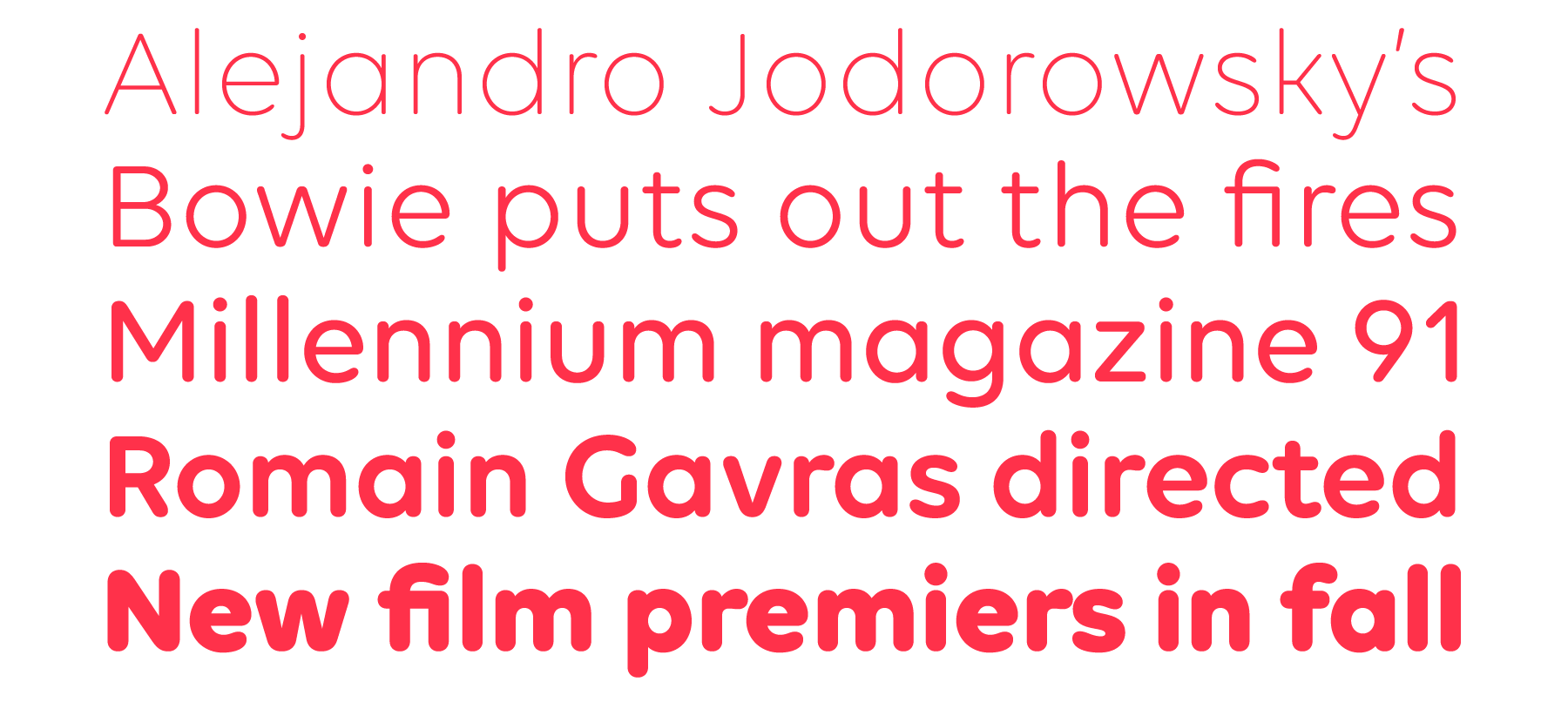
Volte Rounded’s five styles range in weight from a Light through Bold. The “Rounded” suffix to the name refers to the stroke endings. These aren’t softened-up corners; Volte Rounded features full-on sausage-style terminals. The characters’ strokes are low-contrast, even in bolder weights. Both Because Volte Rounded’s proportions are so geometric, its letters’ outer shapes are very similar, especially ‘C’, ‘D’, ‘O’, ‘c’, ‘o’, etc. The exterior curves of the ‘O’ and ‘o’ are almost perfect circles. Counterforms are also as close to being perfect circles as possible. Large counters, combined with open apertures, maximise the letterforms’ interior space. By dispensing with a horizontal bar on the capital ‘G’, for instance, the letter is made simpler, and its counter is enlarged, too. Wide apexes – where diagonals come together, such as in ‘A’, ‘V’, and ‘W’ – improve the evenness of fonts’ letter-spacing. In each Volte Rounded font, letter-spacing reflects counterform size. This means that the advance widths of the Bold’s characters are actually smaller than those of the Light. The numerals have streamlined forms. Since these are also narrow, they easily fit into strings of either uppercase or lowercase text. The tops of the numerals align with the uppercase height, and the lowercase’s ascenders extended above the cap height slightly.
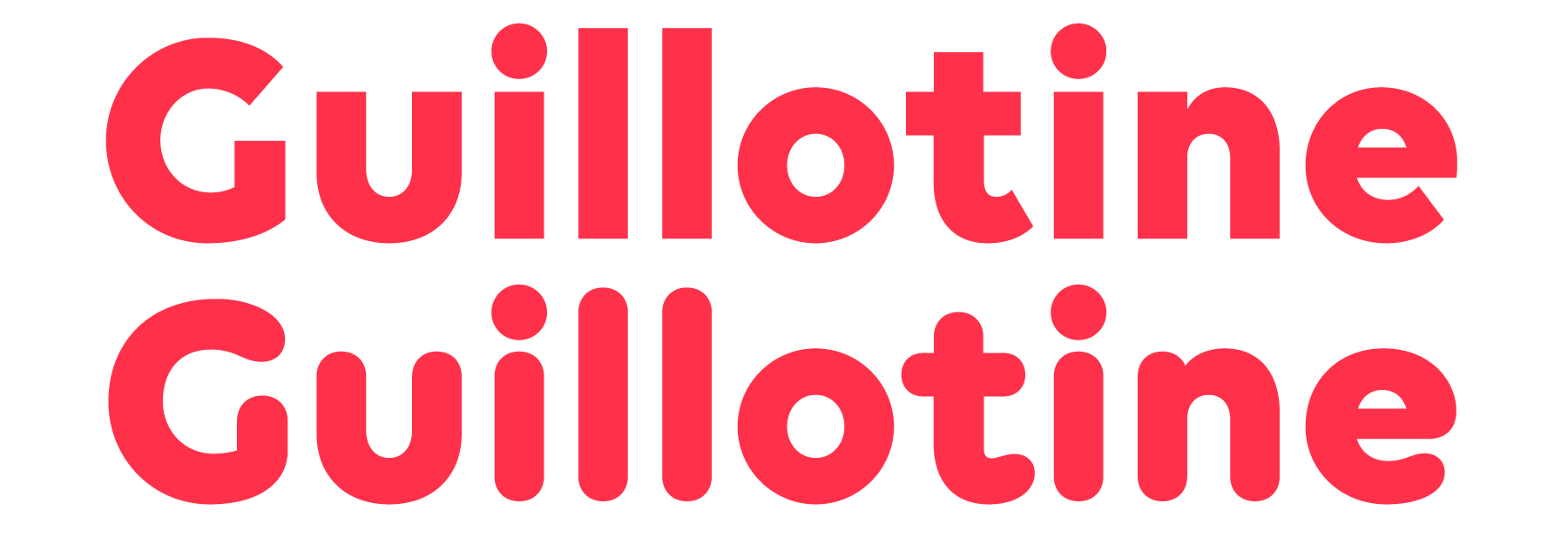
Volte and Volte Rounded diverge from typical geometric sans serifs typefaces in their attractive details, such as their straight-topped ‘3’ or the curled outstrokes on ‘t’ and ‘y.’ The ‘R’ has a straight leg. The ‘a’ and ‘g’ are single-storey, and the ‘u’ is both spurless and symmetrical. The high degree of design simplification is even visible in the typeface’s diacritics and punctuation marks. While this is most obvious in the question mark, the design of the cedilla is also noteworthy. Not only has its structure been simplified, but the mark also attaches to a characters’ base.
Diodrum Cryrillic & Greek
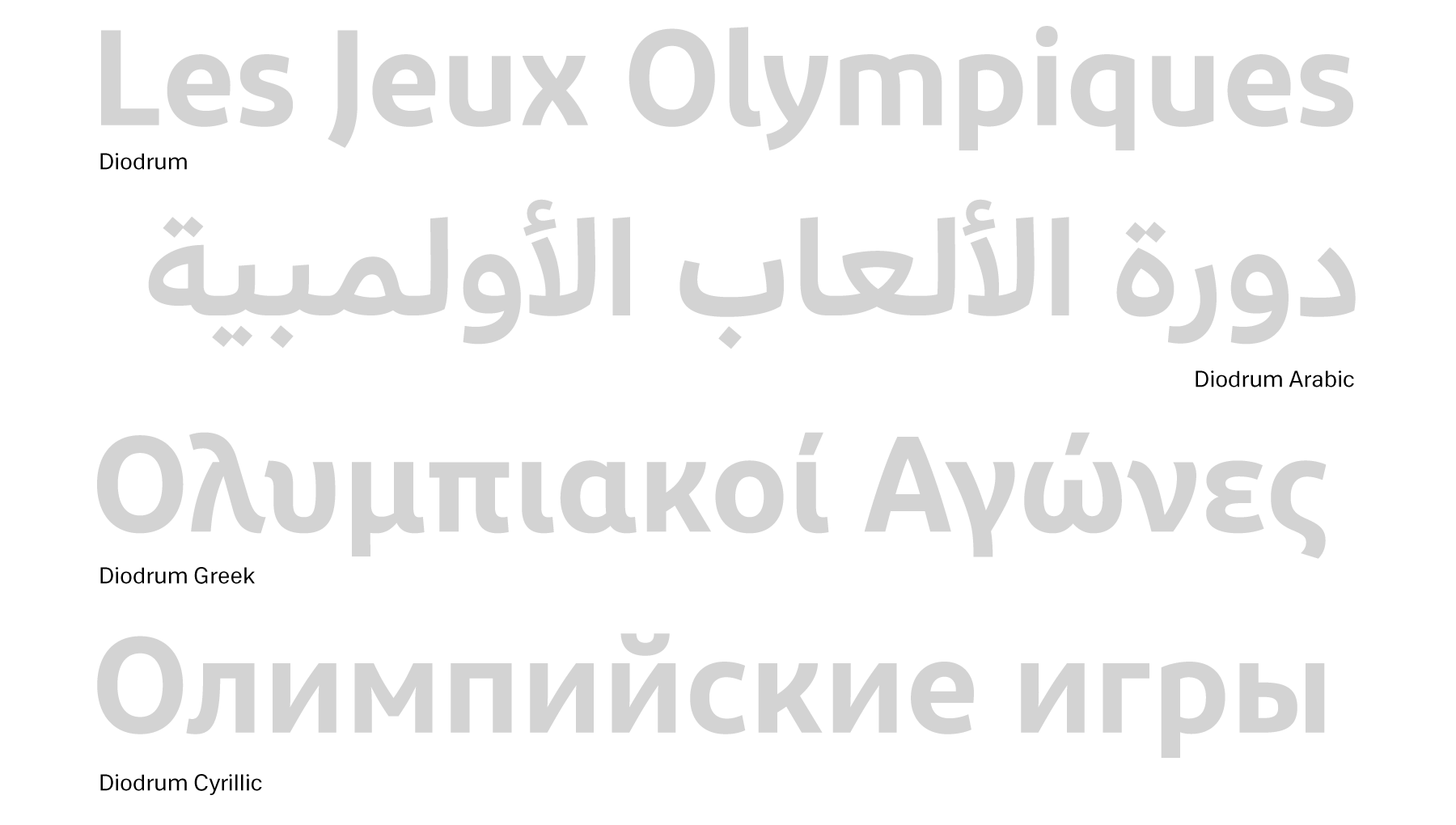
‘Spurless’ typefaces feature smooth transitions from letters’ stems into their curved strokes. Diodrum Latin is a spurless sans, and a quick look at any of the lowercase n’s in the family illustrates this perfectly. In typical sans serif faces, there might still be spur on top of the letter’s top-left corner; here, it has been removed. Just like Volte, Diodrum Latin has proven to be one of ITF’s most-popular recent releases since it was first published in May 2015. This September, we are pleased to publish two follow-ups to our successful Diodrum series. In addition to Diodrum Latin and Diodrum Arabic, ITF now has Diodrum Cyrillic and Diodrum Greek on offer.
Diodrum Cyrillic and Diodrum Greek were designed in Paris by Jeremie Hornus and Alisa Nowak. Each family contains six weights: Extralight, Light, Regular, Medium, Semibold and Bold. Because of its multiple weights, versatile range, and formal style, Diodrum Cyrillic and Diodrum Greek are an excellent choice for usage in Corporate Design and UI/UX Design applications, just like Diodrum Latin. Each font in the Diodrum Cyrillic family includes 604 glyphs – that is the full Diodrum Latin character set, plus over 200 additional Cyrillic glyphs. Diodrum Greek’s fonts have a 457-glyph character set; this offers full Latin-script support, plus Monotonic Greek.
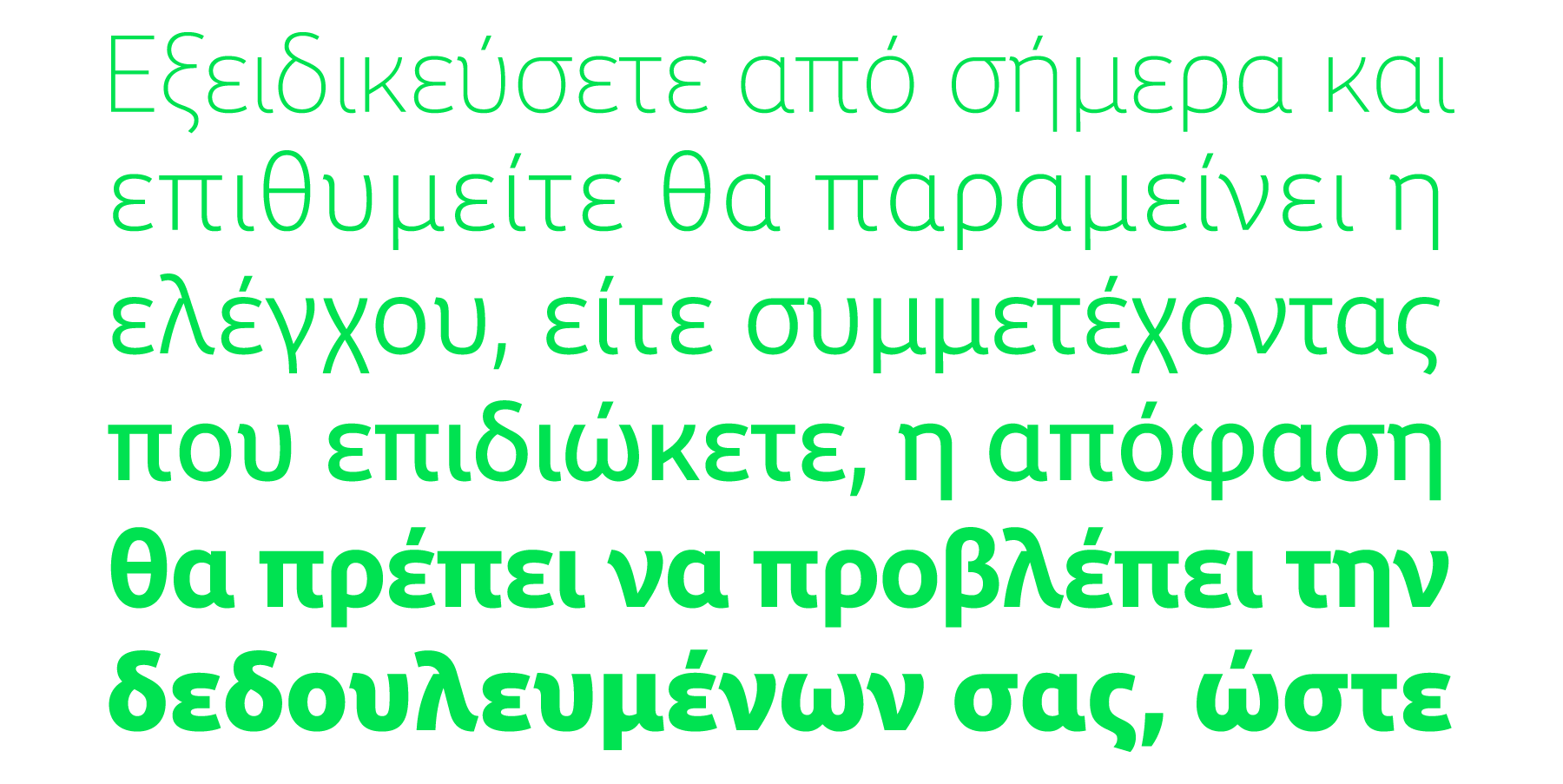
While some Diodrum letters include a modicum of stroke contrast, the typeface’s design is generally monolinear. The x-height is high, and counterforms are large and open. This makes Diodrum appear friendly, in addition to being legible. Several of Diodrum Greek’s letters do have in and outstrokes that might look like spurs. Instead of breaking with the spirit of the Diodrum Latin design, these elements help cement Diodrum Greek’s script appropriateness. Everywhere else, the characters of the scripts harmonise well; both have the same treatment of terminals, and both interpret diagonal elements into swelling curves.